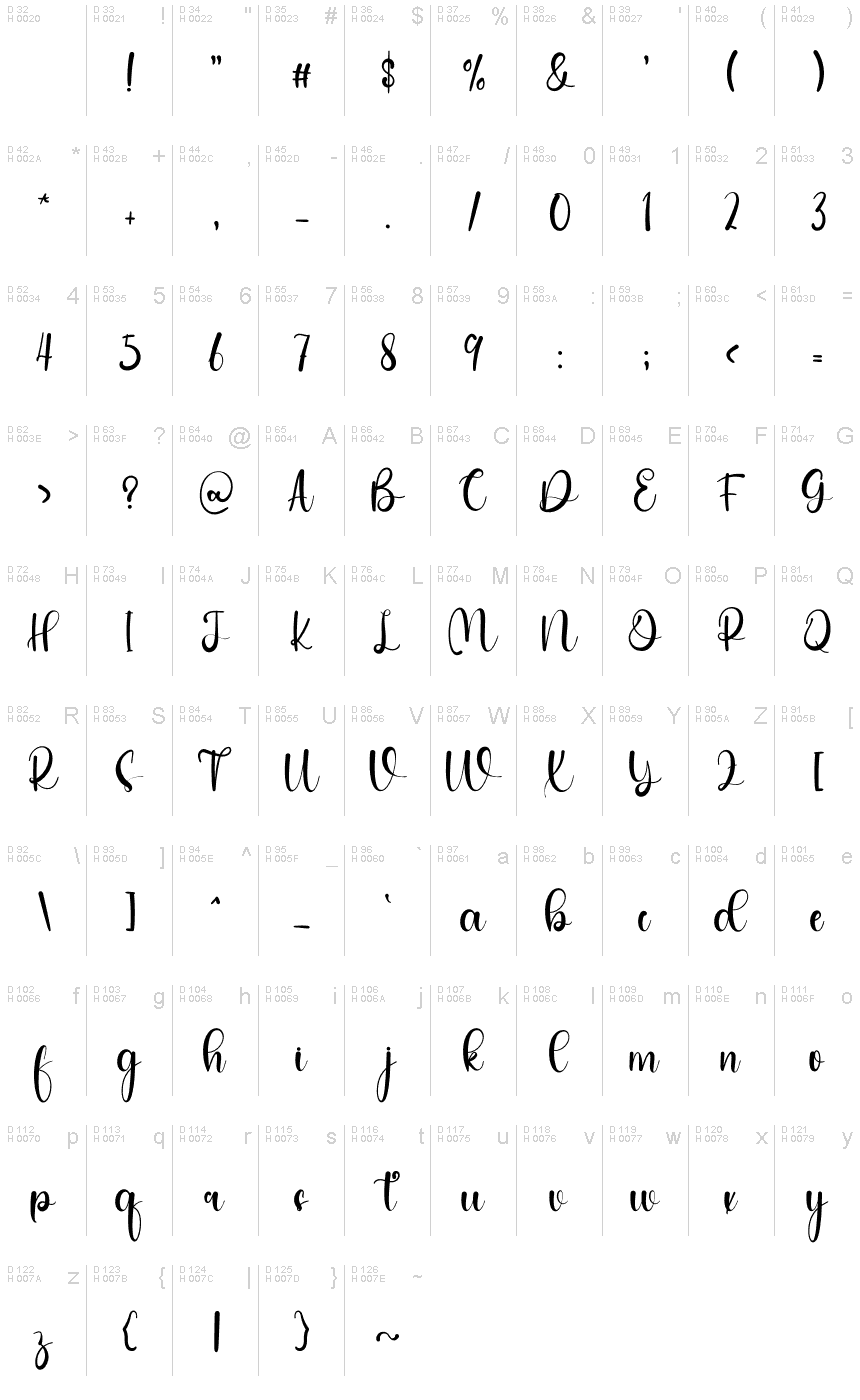
Made
Made, designed by PiPi Creative, is a semi-light handwritten font that exudes a blend of casual elegance and an organic, personal touch. Its flowing curves and slight variation in stroke weight give it a humanistic charm that is both inviting and aesthetically pleasing. Each character in Made showcases a unique balance between meticulous craftsmanship and the spontaneous freedom typical of hand-drawn typography.
This font's stylish yet understated appeal makes it perfect for design projects requiring a touch of personality without overwhelming the accompanying elements. Whether it's for branding, invitations, or editorial layouts, Made delivers versatility with its handwritten flair. The fluidity and grace inherent in its form ensure that this font stands out as an engaging choice for creatives looking to infuse their work with warmth and character.